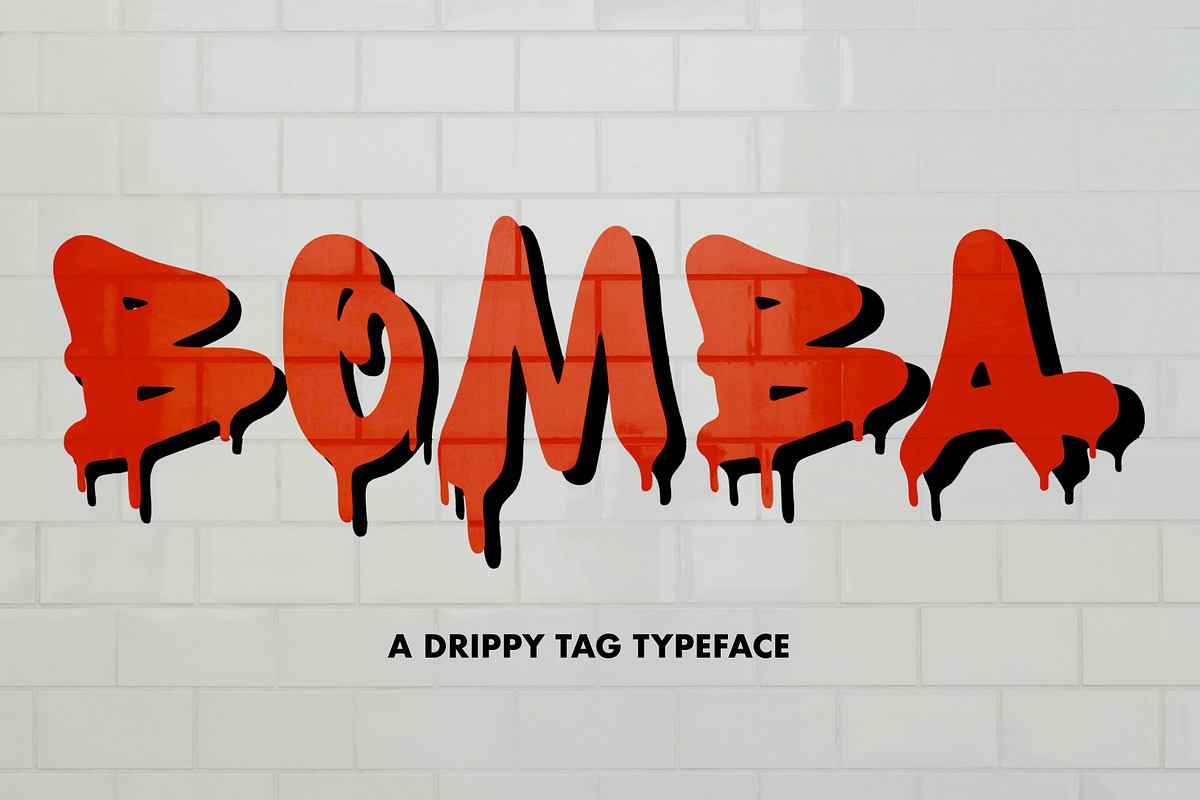
Bomba Font Free Download is a bold, energetic display typeface designed to make a serious impact. With its chunky letterforms, sharp edges, and explosive attitude, Bomba is perfect for posters, headlines, sports branding, gaming graphics, and anything that demands attention.
This font doesn’t whisper—it shouts. Bomba brings high energy and fearless design into every project. Whether you're working on a dynamic logo, edgy merchandise, or a powerful visual campaign, Bomba delivers with punch and personality.
It’s loud, it’s proud, and it’s built to be noticed. Use it to break the silence and let your message come through strong and clear.